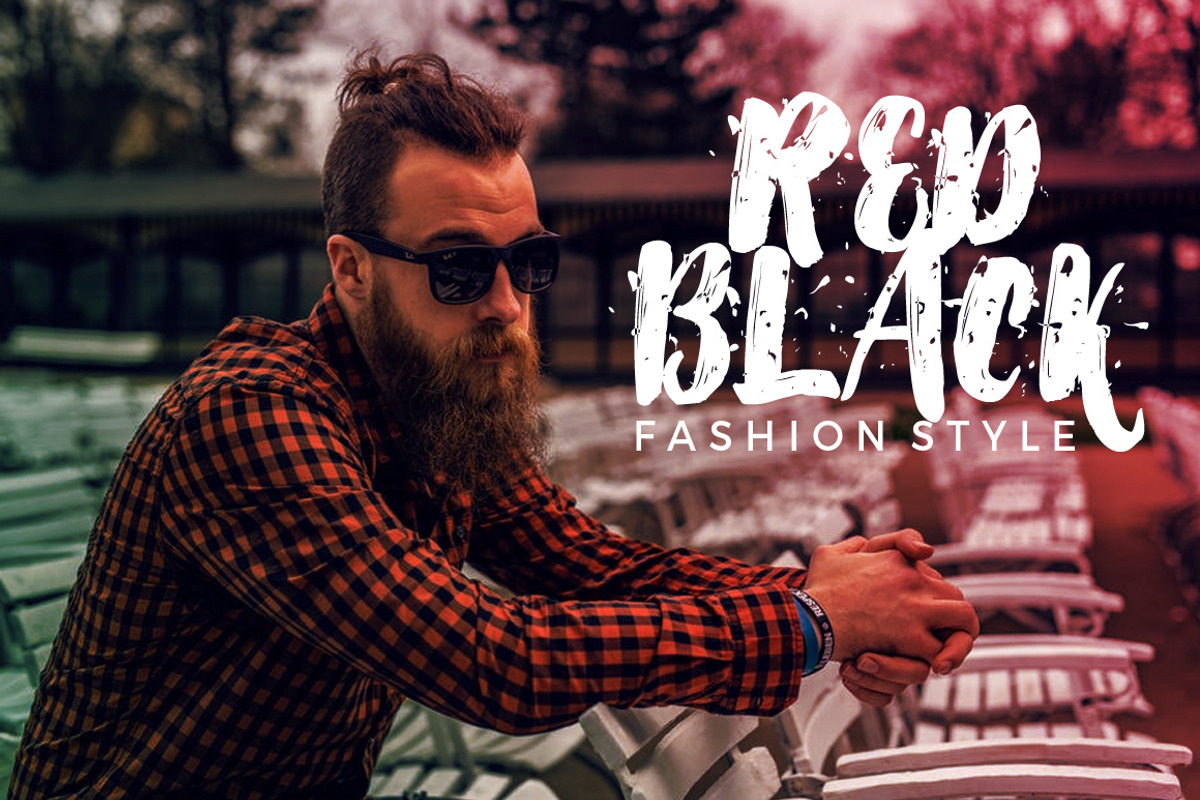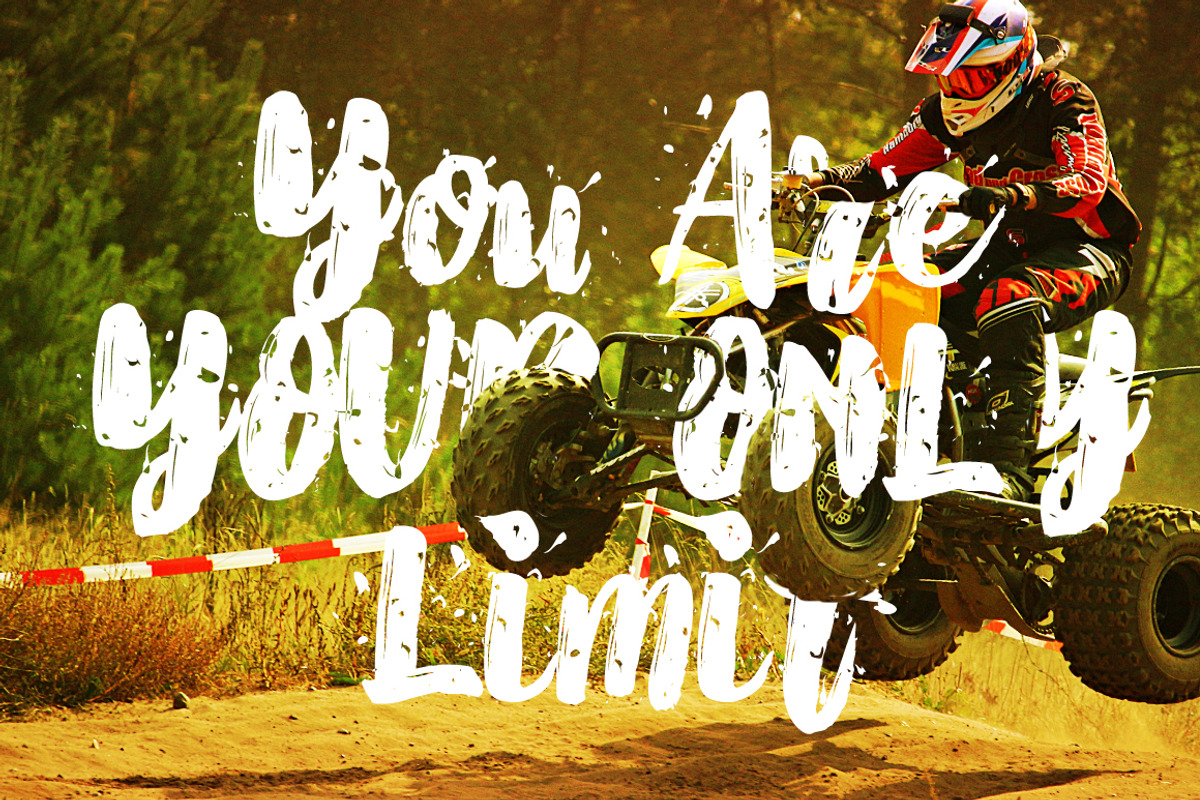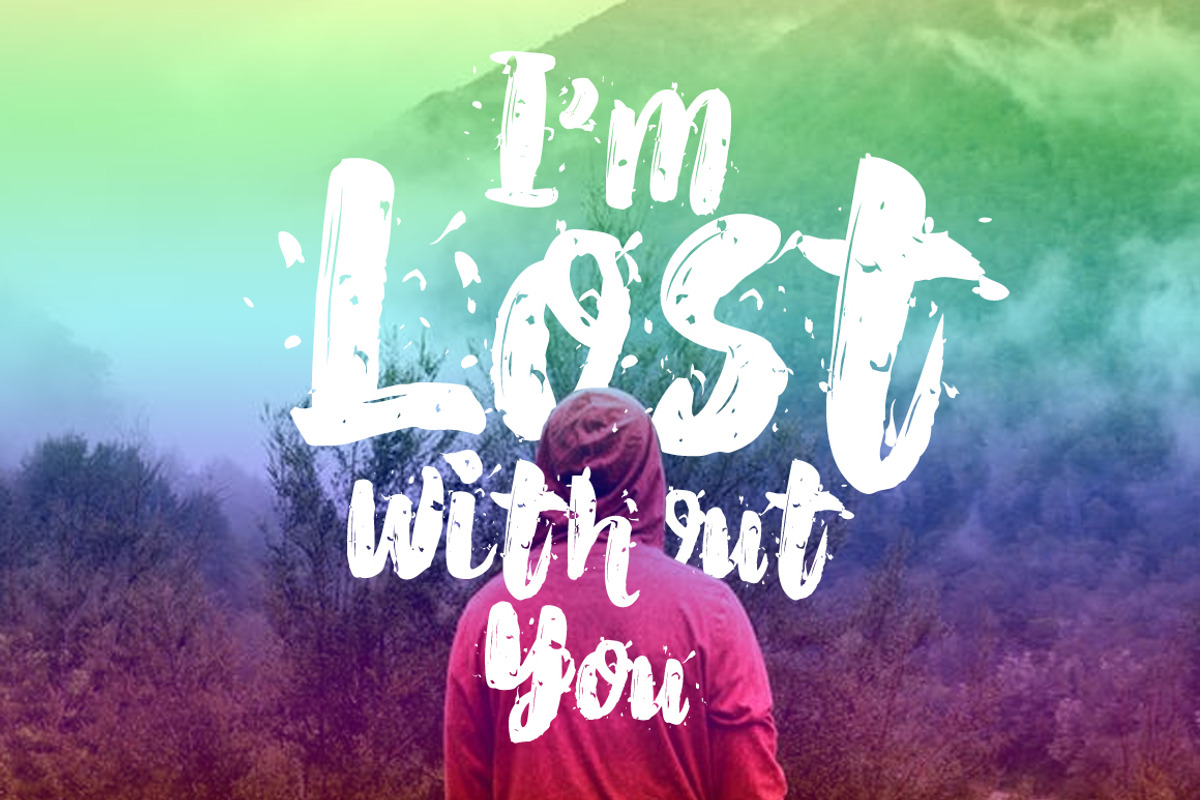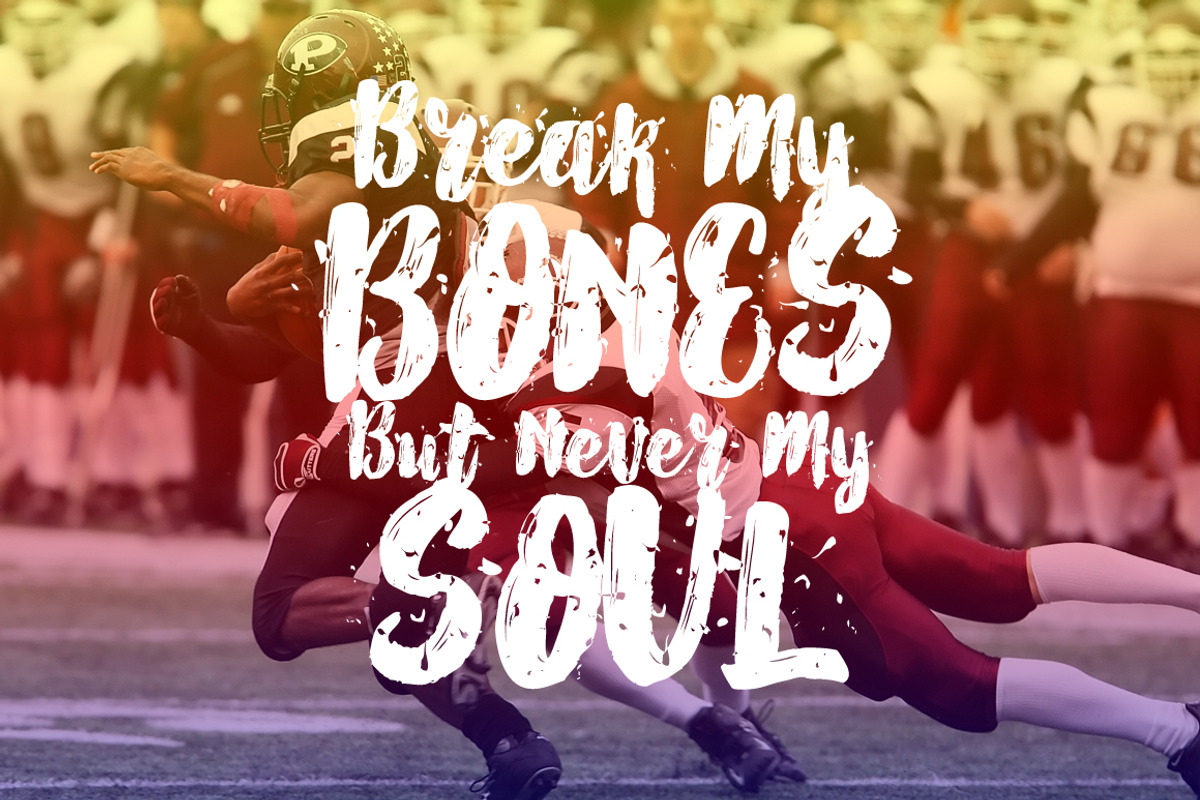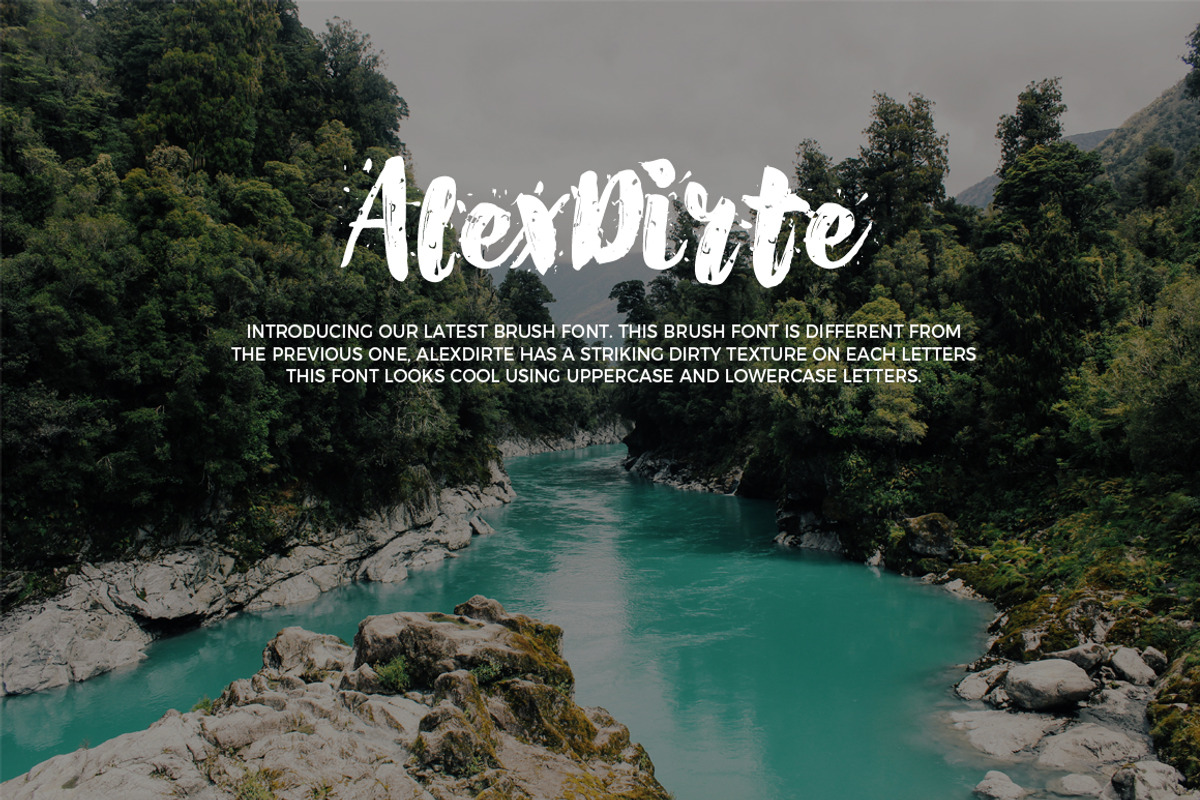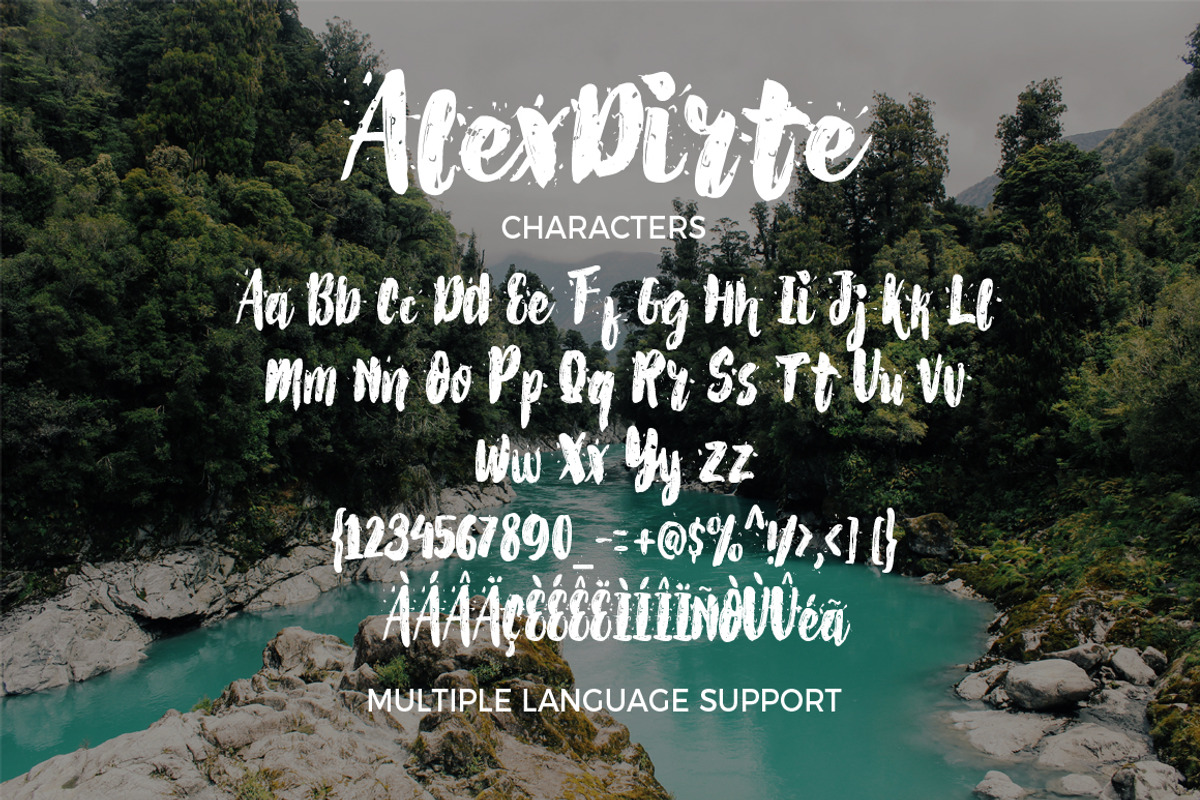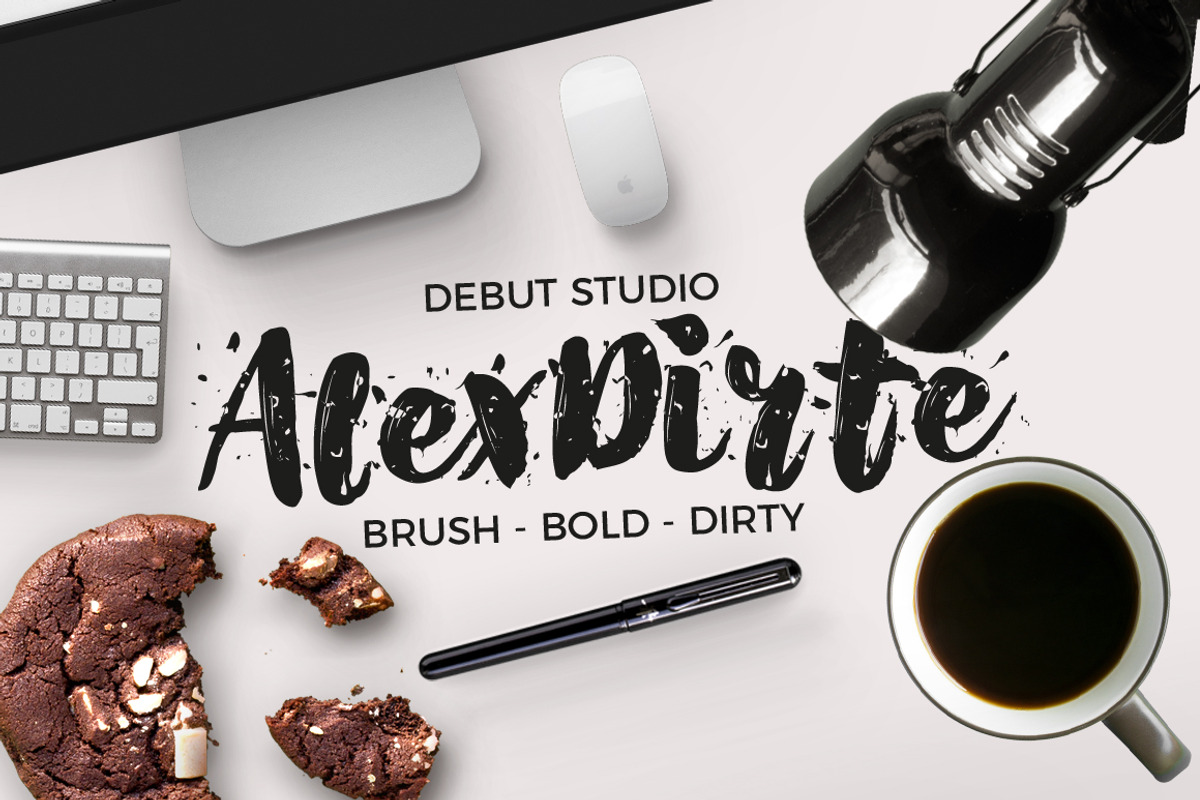
AlexDirte Brush Font
Introducing our latest brush font. this brush font is different from the previous one, alexdirte has a striking dirty texture on each letters. this font looks cool using uppercase and lowercase letters.
- Multiple Language Support
- this font looks cool using uppercase and lowercase letters.
Why AlexDirte Brush Font is worth a look
AlexDirte Brush Font by Debut Studio fits naturally into Branding, posters, packaging, typography.